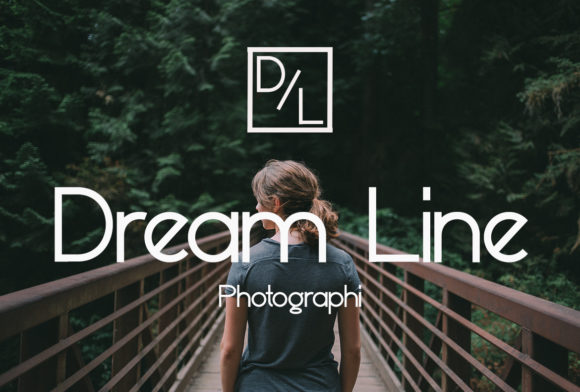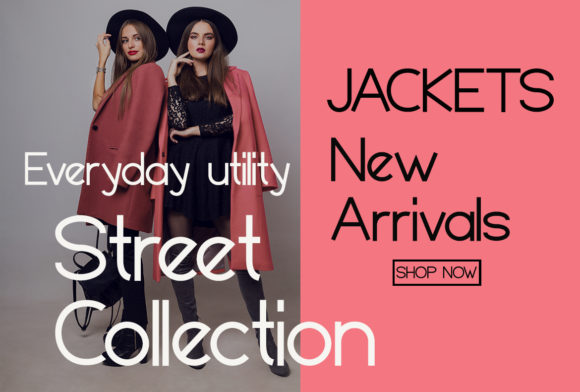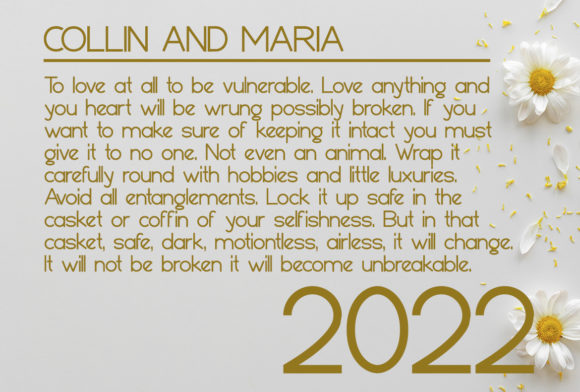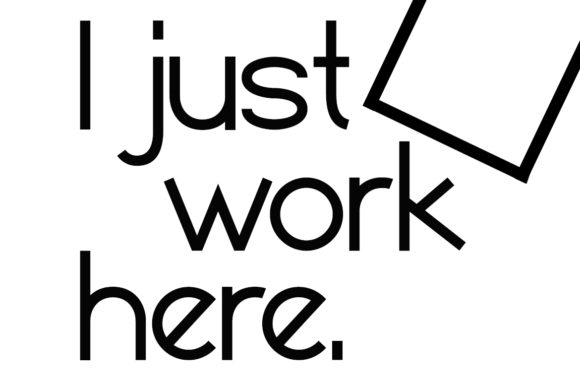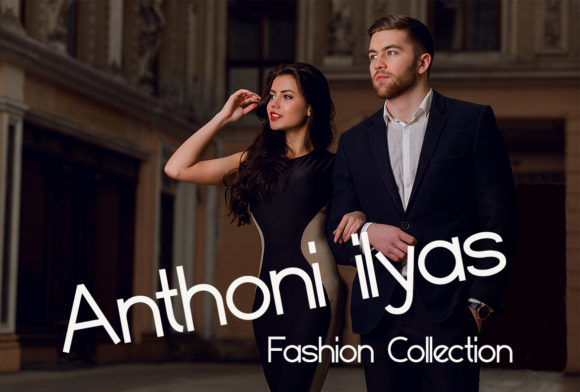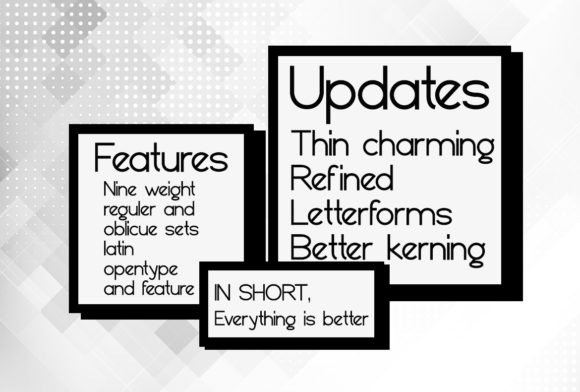
Discover the Perfect Sans Serif Companion: Deuglas Font
As a designer, have you ever stared at a blank canvas, desperately searching for the perfect font to bring your creative vision to life? The struggle is real, but today we’re about to introduce you to a game-changing solution. Meet Deuglas Font, a sleek and modern sans serif font designed to elevate your projects to the next level.
This versatile font is more than just a pretty face; it’s a reliable companion that can seamlessly integrate into a wide range of designs. Whether you’re working on a minimalist brochure, a bold logo, or a futuristic website, Deuglas Font is the perfect match. Its clean lines, simple shapes, and balanced proportions make it an invaluable asset for designers seeking to create visually striking and professional-looking projects.
Deuglas Font Key Features
- Font Family: Deuglas Font is a sans-serif font family with 6 styles (Thin, Light, Regular, Medium, Bold, Black).
- Character Count: The font family contains a wide range of characters, including Latin, Cyrillic, and Greek alphabets, as well as punctuation and symbols.
- Unique Characteristics: Deuglas Font features a distinctive geometric shape with clean lines and a minimalist aesthetic, making it a popular choice for modern and sleek designs.
Deuglas Font Review
Overall, I’m impressed with Deuglas Font. Here are some of its standout features: ✨
- Unique Character**: Deuglas Font brings a distinctive touch to any design project. Its blend of modern and playful elements makes it perfect for creatives looking to add some personality to their work.
- High Customization**: This font is incredibly versatile, with a wide range of styles and weights available. It’s easy to see why it’s become a favorite among designers.
- Excellent Legibility**: Deuglas Font is designed with readability in mind, making it perfect for body text and headings alike.
However, like any font, Deuglas has its limitations: ⚠️
- Limited Support for Non-English Text**: Unfortunately, Deuglas Font doesn’t support a wide range of languages, which may be a deal-breaker for some designers.
- Not Suitable for Minimalist Designs**: With its bold, playful style, Deuglas Font may not be the best choice for minimalist designs or projects where a clean, simple aesthetic is required.
Overall, I think Deuglas Font is a solid choice for designers who want to add some personality to their work. While it may have some limitations, its unique character, high customization, and excellent legibility make it a great addition to any design toolbox.
Tips for Getting the Most Out of Deuglas Font
Deuglas Font is perfect for adding a touch of whimsy and playfulness to your designs. Here are some tips to get the most out of it:
- Use Deuglas Font for headings and titles to add a unique touch to your design.
- Pair Deuglas Font with other playful fonts to create a fun and energetic look.
- Use Deug